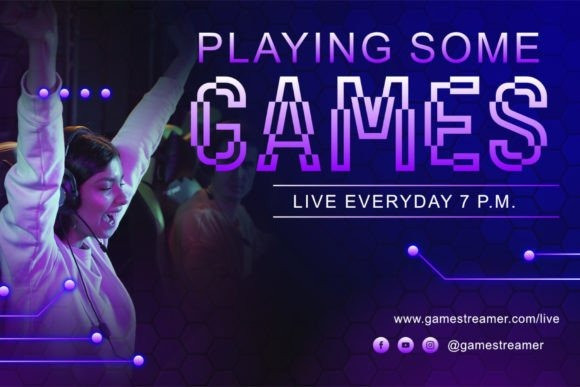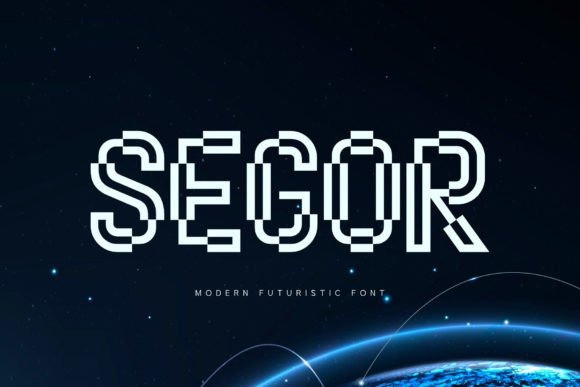
Segor Font
Segor Font, a cutting-edge modern futuristic font designed to elevate your projects to new heights. This sleek, stylish typeface boasts clean lines and geometric shapes, perfect for creating a contemporary and forward-thinking aesthetic.
With Segor, your designs will exude sophistication and a touch of futurism, making a bold statement that captures attention and imagination. Upgrade your font collection with Segor and bring your creative visions to life.